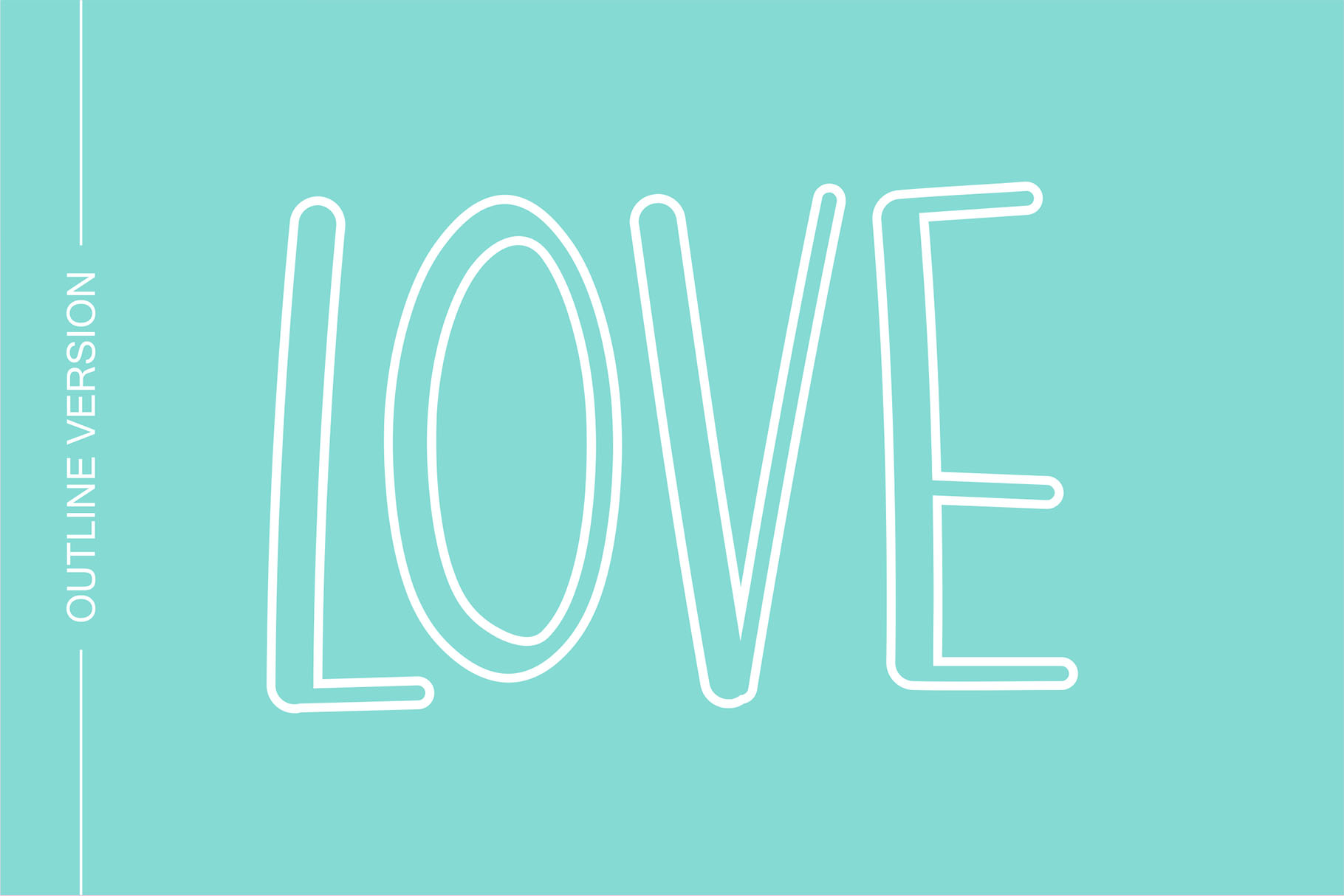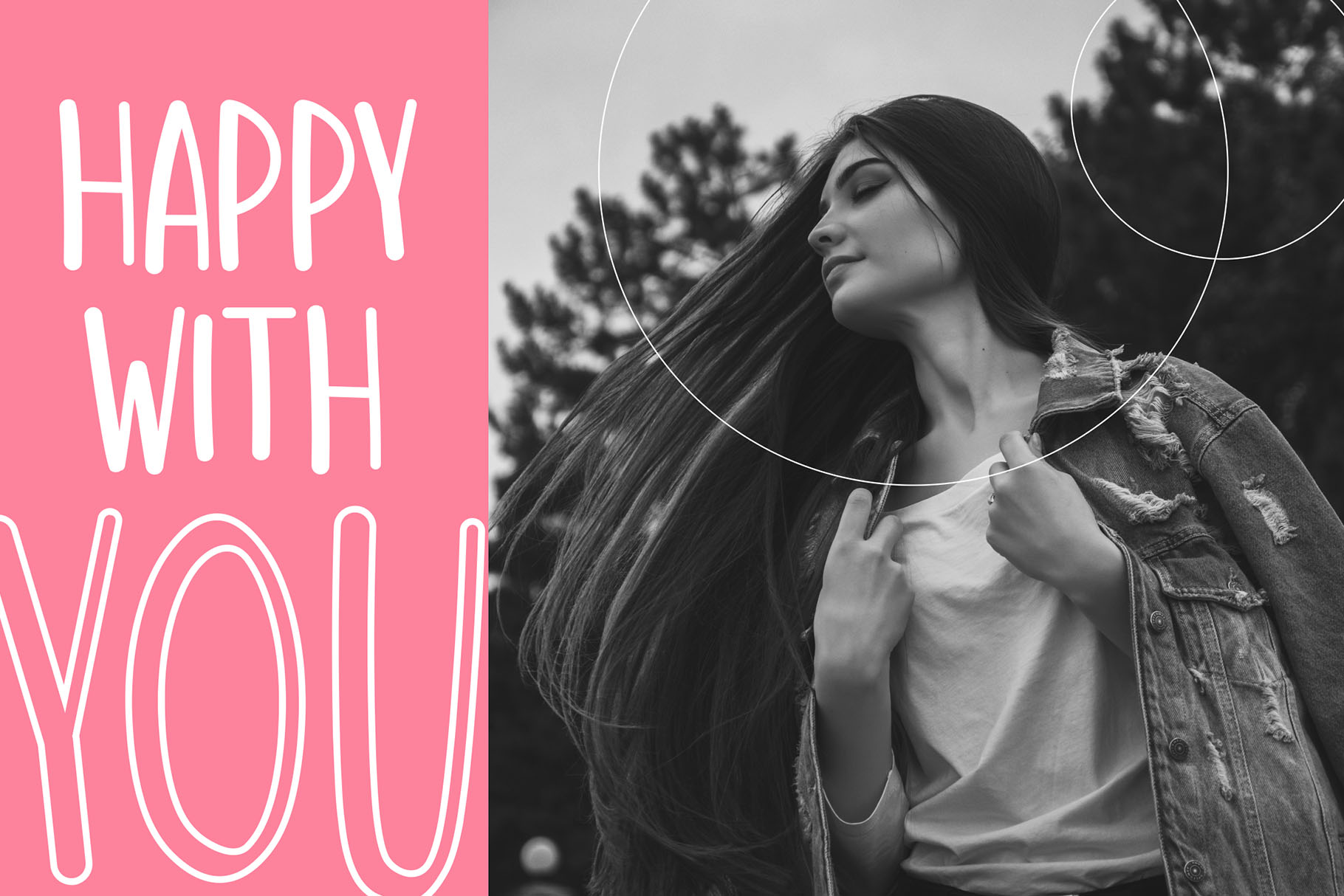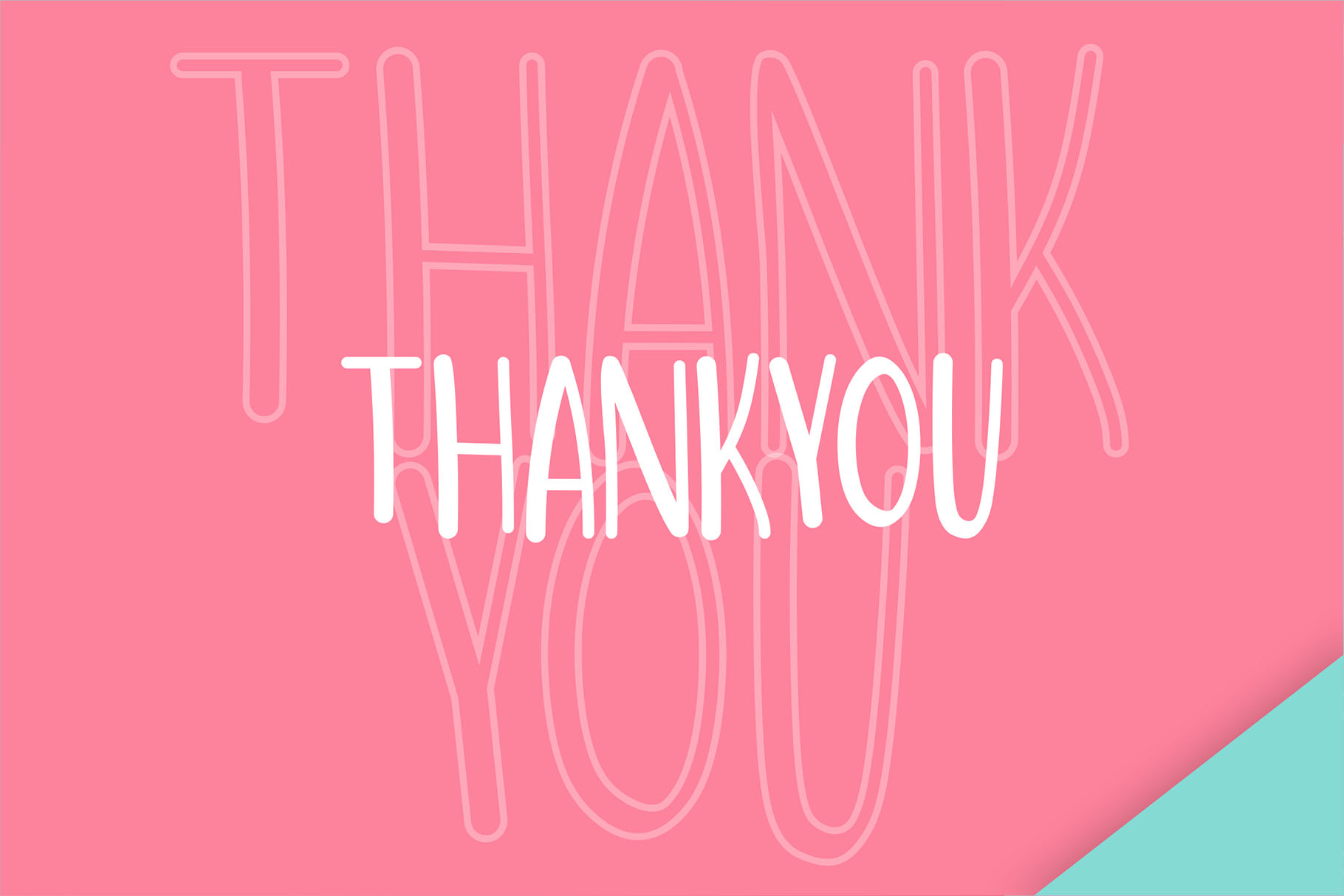
Hello Mozza Handwritten Display Font for Creative Branding
Hello Mozza handwritten display font is made for designers who want expressive lettering with a natural, flowing personality. It brings a unique handwritten rhythm into bold display compositions, making it a strong choice for visual projects that need warmth, character, and a handcrafted touch.
Designed with all-caps characters, numbers, marks, and punctuation, Hello Mozza gives your words a confident display presence without feeling too rigid. Its flowing shape makes it easy to use for quotes, logotypes, badges, labels, packaging, and many other creative design projects where typography needs to carry the visual mood.
This font is especially useful when your design needs to feel personal, approachable, and memorable. Whether you are building a product label, a small business logo, a quote poster, a packaging layout, or a social media graphic, Hello Mozza helps create typography that feels handmade while still being practical for professional design work.
Hello Mozza has a handwritten display style with a lively flow and casual charm. The all-caps structure gives it a strong headline quality, while the hand-drawn movement keeps the design from feeling flat or overly mechanical.
Its regular style works well when you need a clean handwritten look with strong readability. The outline style adds extra visual play, making it useful for layered compositions, bold titles, packaging accents, stickers, badges, merchandise graphics, and designs that need more contrast.
The personality of Hello Mozza sits between playful, friendly, and bold. It does not feel overly formal, which makes it suitable for brands that want to appear creative, warm, and expressive. It can bring a handcrafted tone to modern packaging, lifestyle branding, handmade products, food labels, creative posters, and quote-based artwork.
Best Use Cases
Hello Mozza is a versatile display font for creative projects that need personality at first glance. It works especially well for logotypes, where the flowing handwritten style can help a brand name feel more distinctive and approachable.
For packaging designers, Hello Mozza can add an artisan-inspired touch to labels, product names, flavor titles, handmade goods, boutique packaging, and seasonal product graphics. Its outline style gives extra flexibility when building packaging systems that need hierarchy, contrast, or a more decorative headline treatment.
For content creators and digital product sellers, this font is also useful for quotes, printable designs, stickers, social media graphics, badges, and simple merchandise concepts. Since the font includes all-caps characters, numbers, marks, punctuation, and multilingual support, it can support a wider range of visual layouts based on the provided character set.
Use Hello Mozza when your project needs a handwritten display font that feels creative without becoming too complicated. It is a practical choice for designers who want a font with personality, movement, and a flexible two-style family.
Key Features
• Handwritten display font with a unique flowing style
• Two styles included: Regular and Outline
• All-caps characters
• Numbers included
• Marks and punctuation included
• Multilingual support
• Suitable for quotes, logotypes, badges, labels, packaging, and creative projects
Designers love Hello Mozza because it offers a strong handwritten look while staying easy to apply across different design needs. The all-caps structure makes it useful for display text, headlines, packaging titles, and logo concepts, while the flowing handwritten shape adds a personal feeling to each composition.
The two included styles give you more room to build contrast. Use the regular style for clean headline impact, then use the outline style for emphasis, decorative lettering, or layered visual treatments. This makes Hello Mozza practical for brand designers, packaging designers, crafters, content creators, and digital product sellers who need a font that can move between different formats.
For quote designs, Hello Mozza brings energy and warmth. It can make short phrases feel more expressive, especially in posters, printable artwork, social posts, greeting graphics, and lifestyle visuals. For labels and badges, it adds a handcrafted character that helps the design feel less generic and more personal.
For a playful handwritten pairing with a casual creative mood, try Bakso Tahu. It can support friendly layouts, handmade product visuals, and cheerful brand graphics.